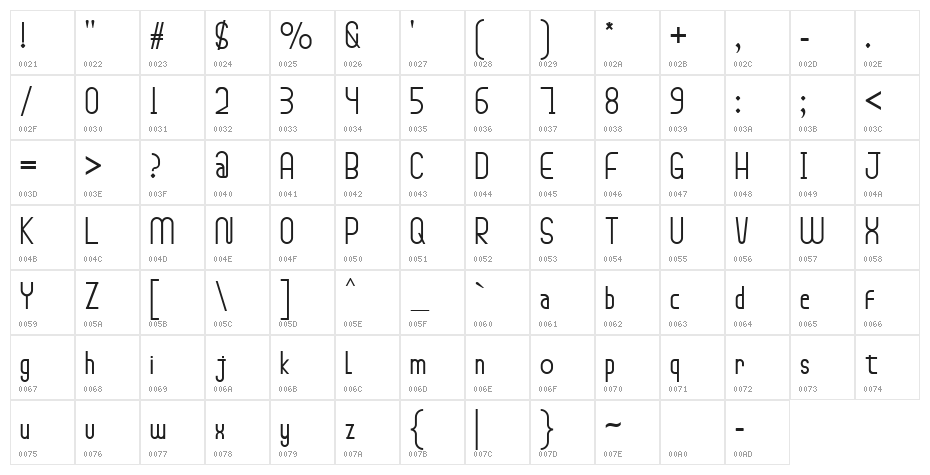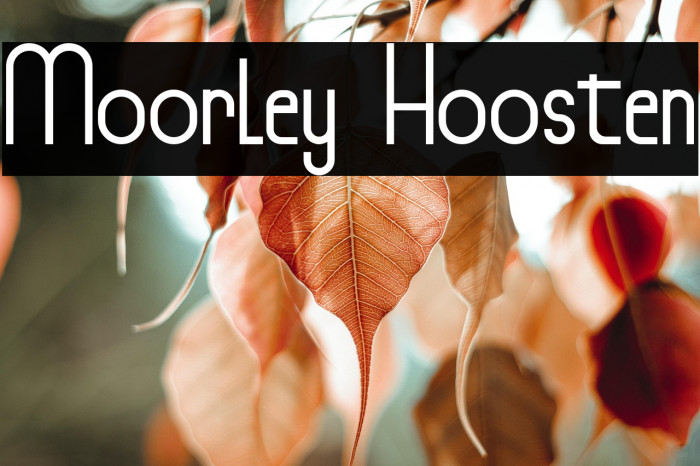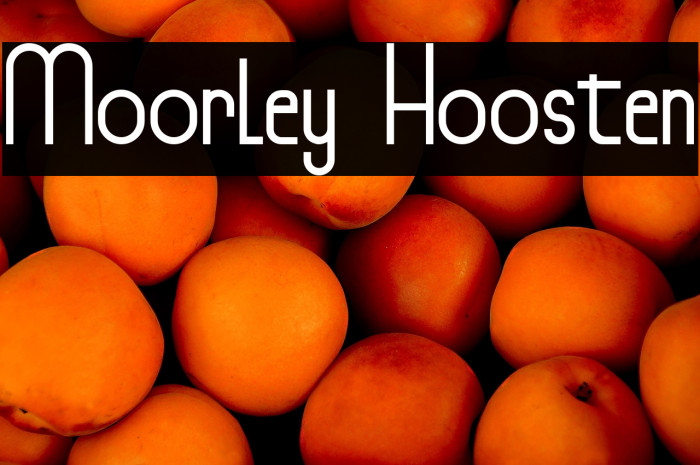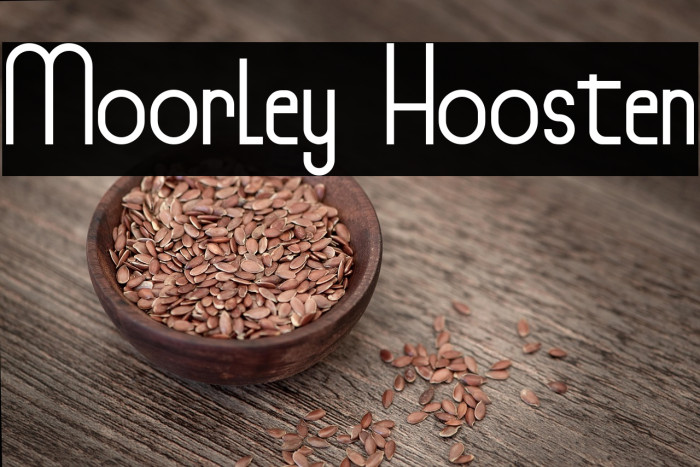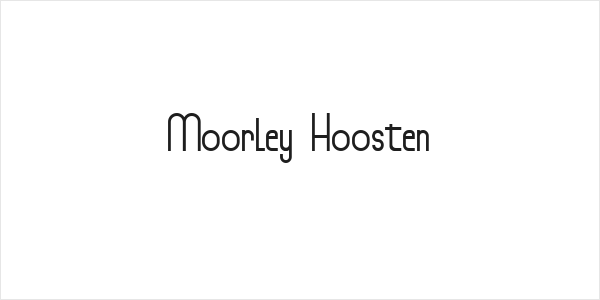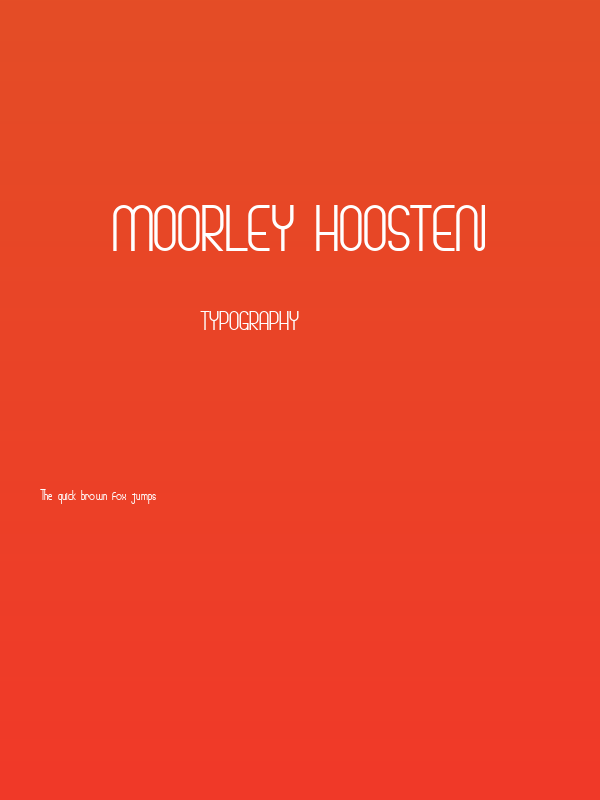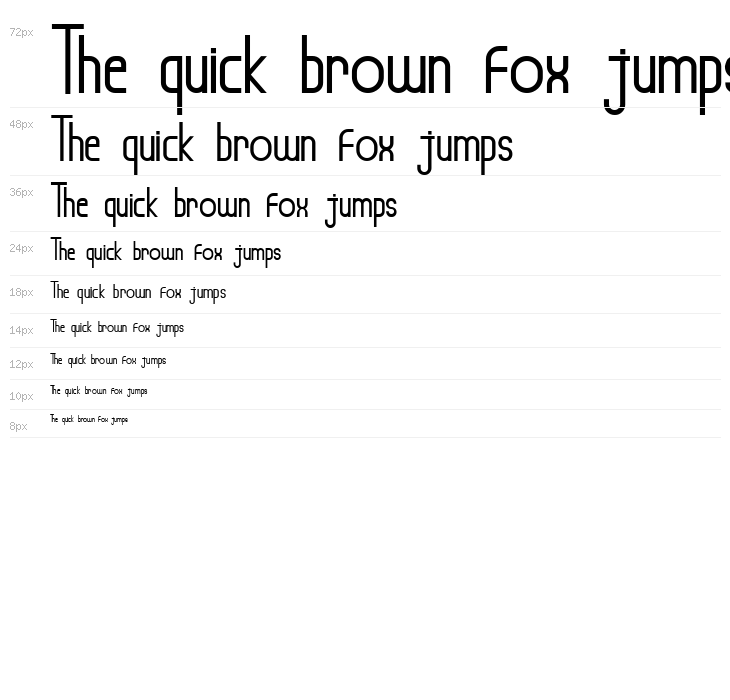
Moorley Hoosten Font
Moorley Hoosten Description
This font features a modern and geometric design with clean, rounded edges and a uniform stroke width. The characters are tall and narrow, giving it a sleek and contemporary appearance. The uppercase letters are particularly elongated, while the lowercase letters maintain a consistent height, contributing to a harmonious and balanced look. The numerals are distinct and easy to read, with a similar geometric style. Special characters are well-integrated, maintaining the overall aesthetic. This font is versatile, suitable for a variety of design projects that require a modern and stylish touch.
| Use Case | Headlines, Logos, Digital media |
| Proposed Projects | Ideal for branding, advertising, digital media, and editorial design projects. |